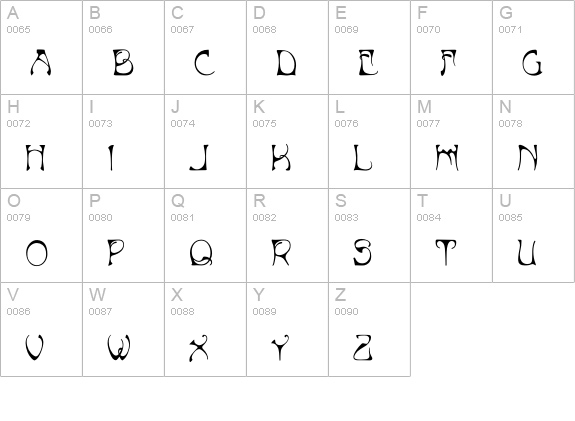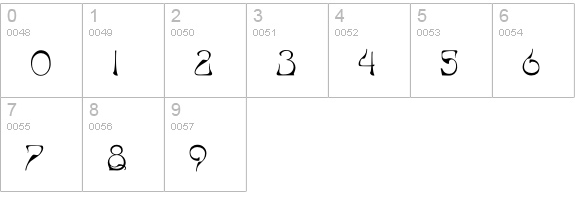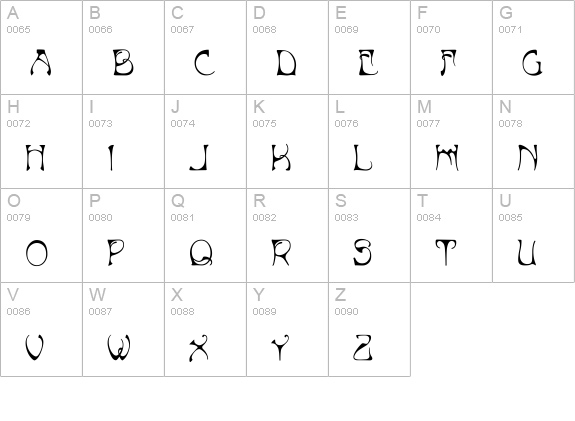
P22 Art Nouveau Bistro Font Details
P22 Art Nouveau Bistro font is a captivating and elegant typeface that pays homage to the Art Nouveau movement of the late 19th and early 20th centuries. With its flowing lines and intricate details, this font exudes a sense of grace and beauty, making it perfect for adding a touch of sophistication to any design project. Inspired by the ornate and decorative nature of Art Nouveau, P22 Art Nouveau Bistro font features sweeping curves, delicate flourishes, and intricate embellishments that bring a sense of elegance and refinement to your typography. Each letter is meticulously crafted, with attention to detail that showcases the craftsmanship of this unique typeface. What makes P22 Art Nouveau Bistro font even more enticing is that it is available for free download at FontsMarket.com. Whether you're a designer looking to create stunning visuals or a typographer in search of a font that captures the essence of Art Nouveau, this font is a valuable addition to your collection. With its wide range of weights and styles, P22 Art Nouveau Bistro font offers versatility and flexibility in your design projects. From elegant branding and packaging to stylish invitations and editorial layouts, this font can effortlessly elevate your designs and add a touch of timeless beauty. Whether you're creating a vintage-inspired poster, a sophisticated logo, or a stylish menu, P22 Art Nouveau Bistro font is the perfect choice. Its unique blend of classic elegance and modern flair makes it a standout typeface that will captivate your audience and leave a lasting impression. So why wait? Embrace the beauty of Art Nouveau and download P22 Art Nouveau Bistro font for free at FontsMarket.com. Unlock the creative possibilities and let this stunning typeface bring a touch of timeless elegance to your design projects.